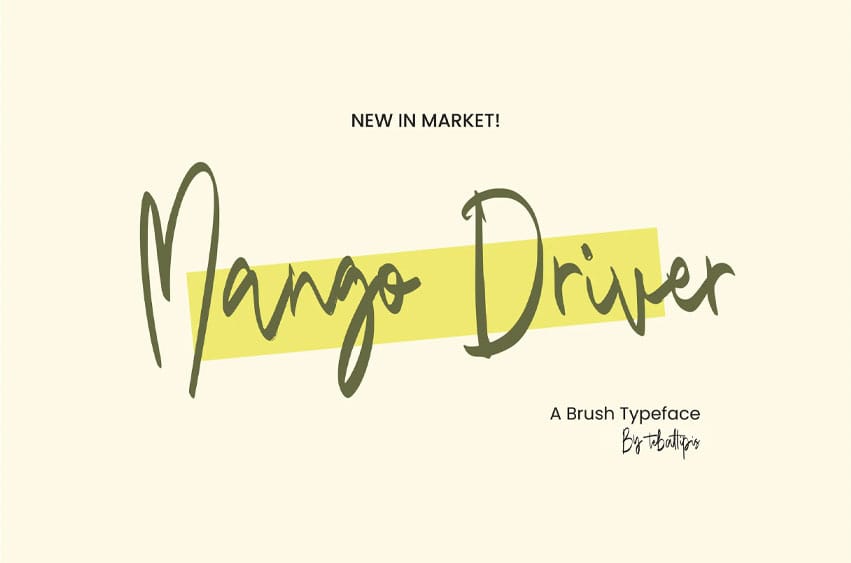
Mango Driver Font Brush is a typeface with personality. You can use it as a logo, badge, insignia, packaging, headline, poster, etc. The alternative characters in this font were divided into several OpenType features such as Stylistic Alternates, Stylistic Sets, and Ligature.